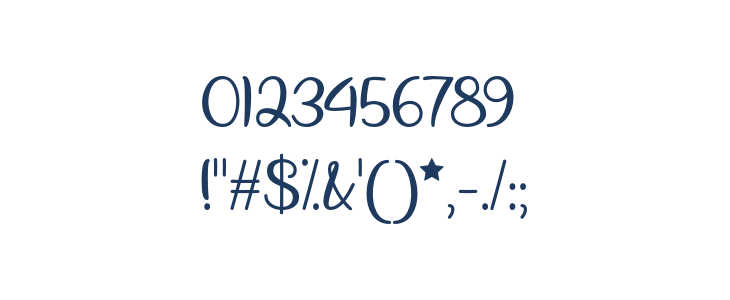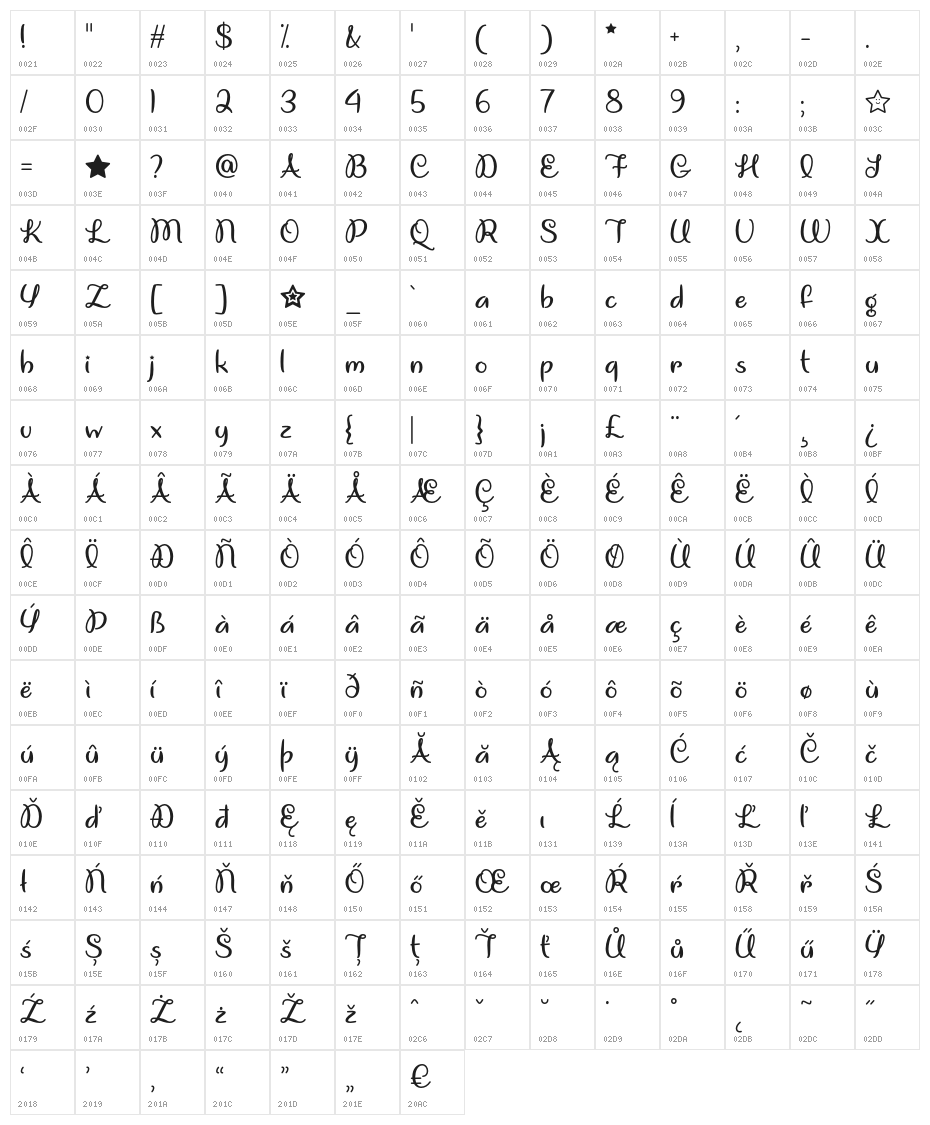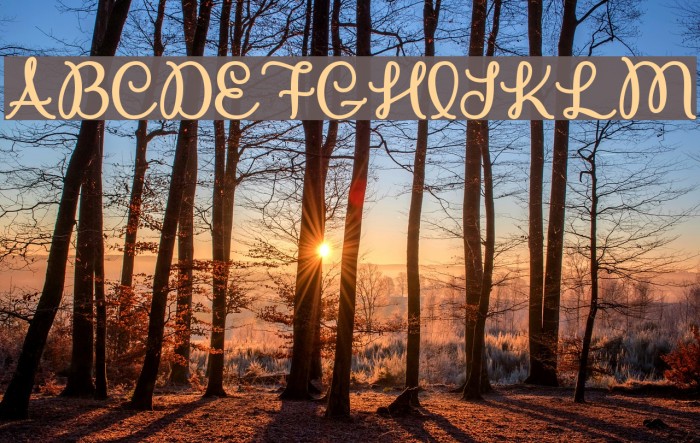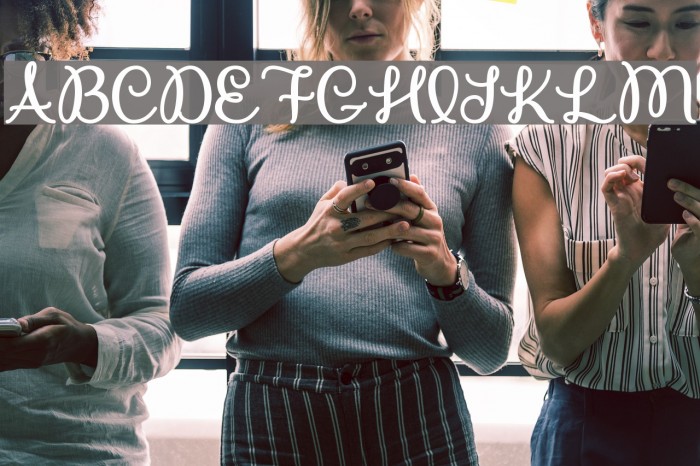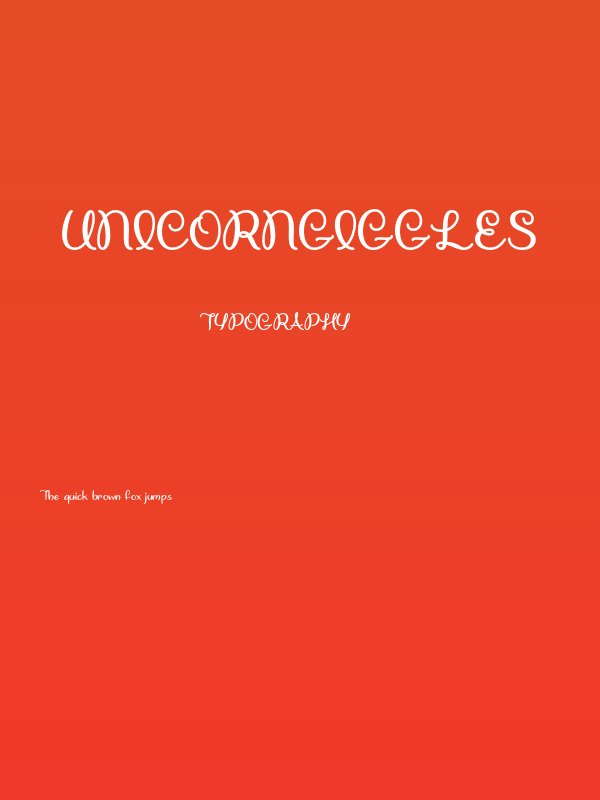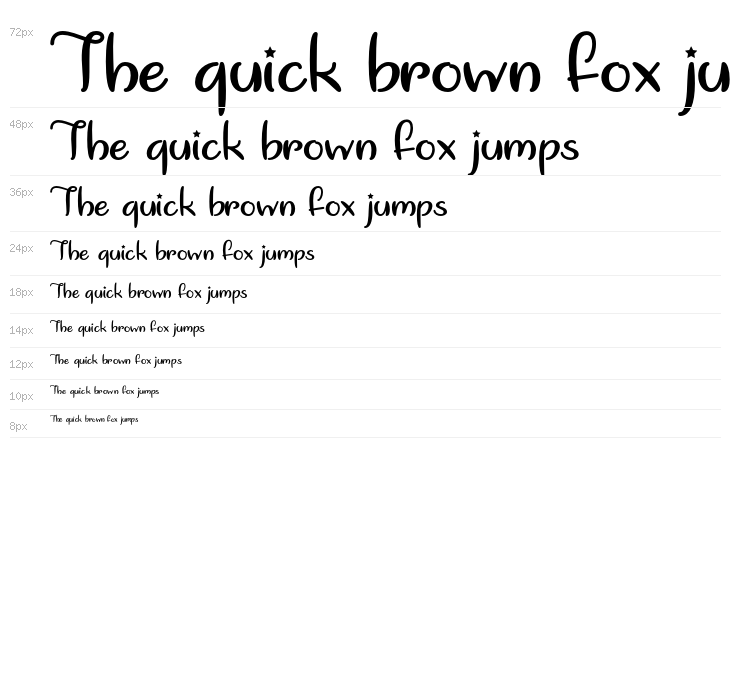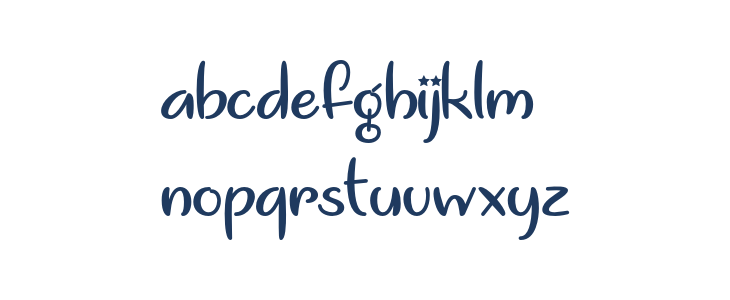
UnicornGiggles Font
UnicornGiggles Description
This whimsical and playful font features a unique blend of script and decorative elements, characterized by its curly, flowing strokes and charming embellishments. The uppercase letters exhibit a delightful looped design, while the lowercase letters maintain a friendly and approachable style. The numbers and special characters are crafted with the same playful spirit, making them perfect for creative projects. The font's overall appearance is both fun and imaginative, ideal for capturing attention and adding a touch of magic to any design.
| Proposed Projects | Ideal for children's books, greeting cards, playful branding, and whimsical invitations. |